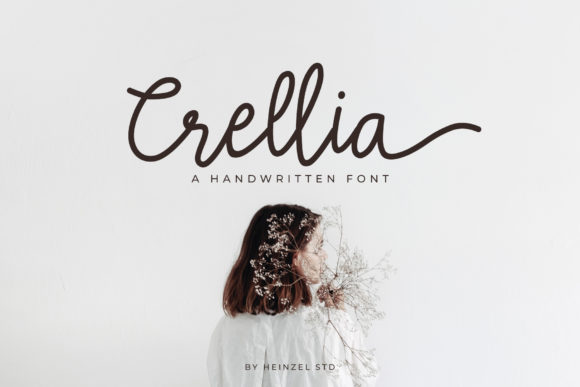
Crellia Script: A Modern Font for Charming Designs
There’s a particular challenge in finding a script font that feels both contemporary and timeless. Too often, handwritten fonts veer into territory that’s either overly casual or distractingly ornate. Crellia Script strikes a compelling balance. It’s a modern typeface with a distinct personality—charming without being childish, sophisticated without feeling stiff. This makes it a versatile design asset for professionals who need a font that communicates warmth and elegance simultaneously. It doesn’t just decorate; it adds a layer of authentic character to a project.
Where Crellia Script Truly Shines
Understanding a font’s strengths is key to using it effectively. Crellia Script excels in applications where a personal, human touch is desired, but with a polished, professional finish. Think of it as the digital equivalent of a beautifully handwritten note on premium stationery. Its fluid strokes and considered letterforms make it ideal for projects that aim to connect on an emotional level.
For brand identity, it’s a natural fit for businesses in the boutique, artisanal, or lifestyle sectors. Imagine it on a logo for a specialty coffee roaster, a wedding planning service, or a handmade cosmetics brand. It immediately sets a tone of care and craftsmanship. In editorial design, it works wonderfully for pull quotes, chapter titles, or magazine headers, adding a moment of visual interest and breaking up blocks of body text set in a serif font or sans serif font.
Digital applications are where its modernity really comes through. It renders beautifully on screen, making it a strong choice for web design hero sections, blog post titles, and email newsletter headers. For social media graphics, it can make quotes, announcements, and promotional material stand out in a crowded feed. Its clarity ensures the message isn’t lost. On the print side, consider it for packaging design, especially for product labels, hang tags, and thank-you cards where you want to convey a personal thank you to the customer. Even for personal projects like custom invitations, greeting cards, or craft projects, it brings a level of sophistication that elevates the final product.
The Practical Side of Choosing and Using Crellia
Adopting a new premium font like Crellia Script is more than just an aesthetic choice; it’s a strategic one. How a typeface is used influences everything from readability to how your brand is perceived. Let’s break down the practical considerations.
Evaluating Fit and Testing Pairings: Before committing, place Crellia in the context of your existing design system. Does its personality align with your brand’s voice? A good test is to use it alongside your primary body copy font. Crellia pairs exceptionally well with clean, geometric sans serif fonts for a contemporary look, or with a classic, readable serif font for a more traditional, elegant feel. This practice of font pairing is crucial for establishing a clear visual hierarchy, where Crellia can serve as the attention-grabbing display font for headlines while the paired typeface handles longer text.
Readability and Licensing: As with any script font, context is everything for readability. Crellia is designed for impact at larger sizes—think headings, logos, and callouts. It’s not intended for setting paragraphs of body copy. Always test it at the intended size and on the intended medium (screen vs. print) to ensure legibility. Furthermore, as a professional commercial font, it’s essential to verify the licensing terms. Ensure the license covers all your intended uses, whether for a client’s logo, printed merchandise, or digital advertising. This due diligence protects your work and supports the type designers who create these valuable tools.
Leveraging Its Styles: Many quality script fonts come with alternate characters, ligatures, or stylistic sets. Take the time to explore what Crellia offers. Swapping an alternate ‘a’ or ‘g’ can sometimes make a word flow more naturally, preventing awkward connections between letters. These nuances are what separate good typography from great typography, adding a layer of custom, handcrafted feel to your work. It’s this attention to detail that contributes to a professional and cohesive brand identity, making your materials instantly recognizable and memorable to your audience.
Ultimately, Crellia Script is a tool for storytelling. Its value lies in its ability to inject a sense of modern charm and human warmth into a design. By understanding its character and applying it thoughtfully, you can leverage this creative font to create work that doesn’t just look beautiful, but also communicates more effectively and builds a stronger connection with your intended audience.